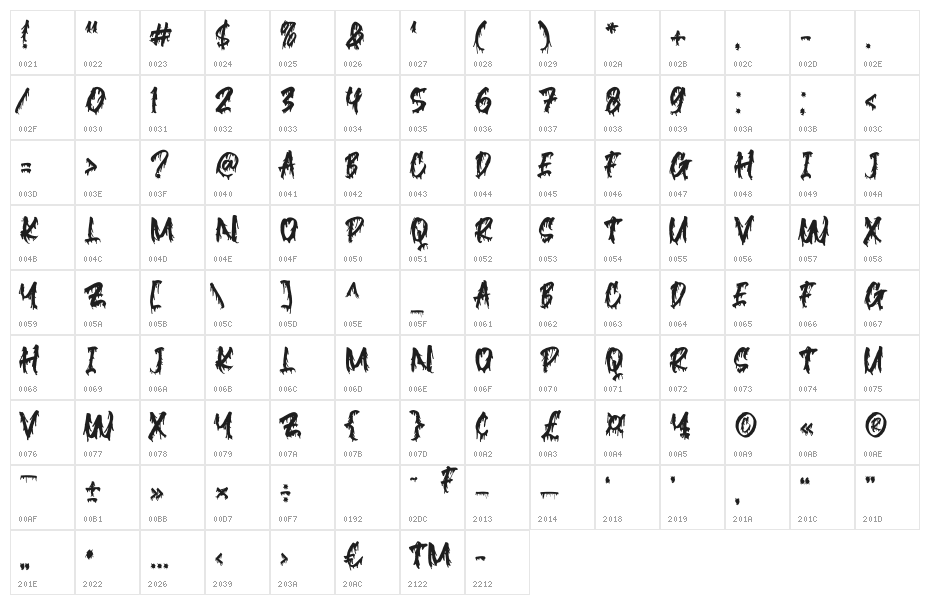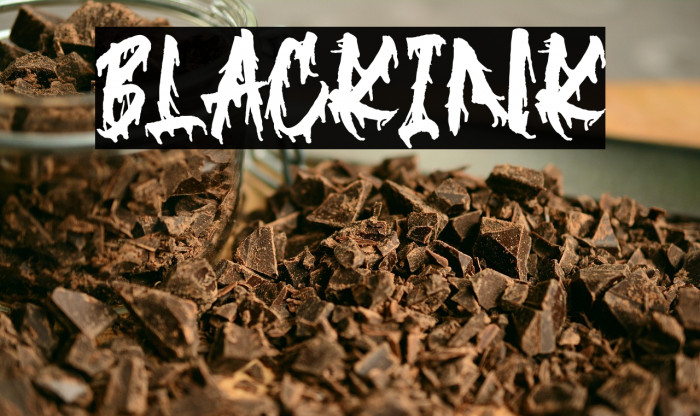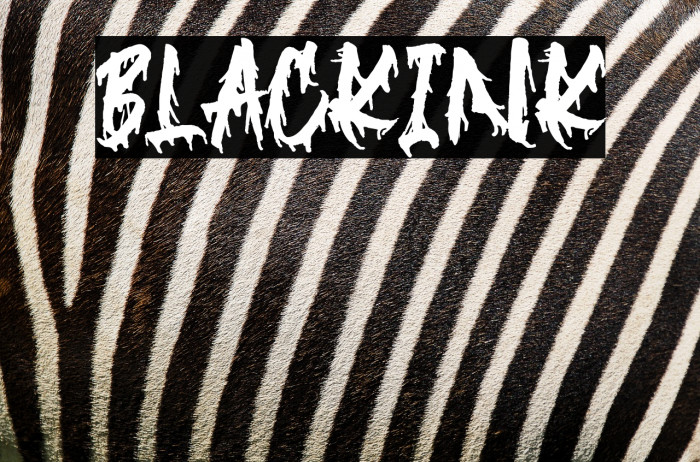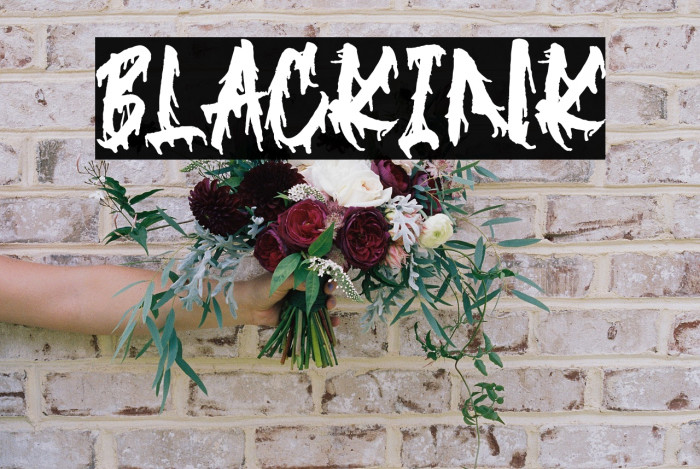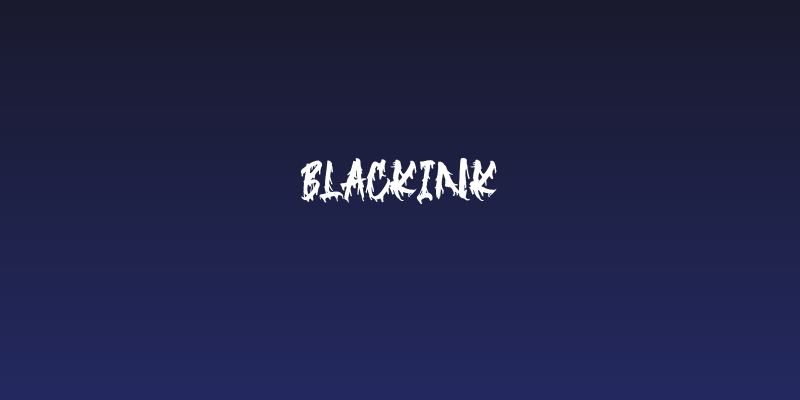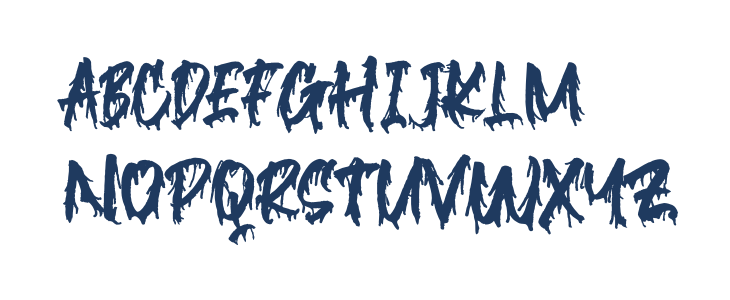
Blackink Font
Blackink Description
This font features a bold and dramatic style, with each character appearing as if it is dripping or melting. The letters have an irregular and jagged edge, giving them a chaotic and intense appearance. The strokes are thick and uneven, creating a sense of movement and energy. This font is highly decorative and is designed to capture attention with its unique and edgy aesthetic. It is suitable for projects that require a strong visual impact and a sense of mystery or horror.
| Proposed Projects | Ideal for horror-themed posters, Halloween invitations, edgy branding, or album covers. |